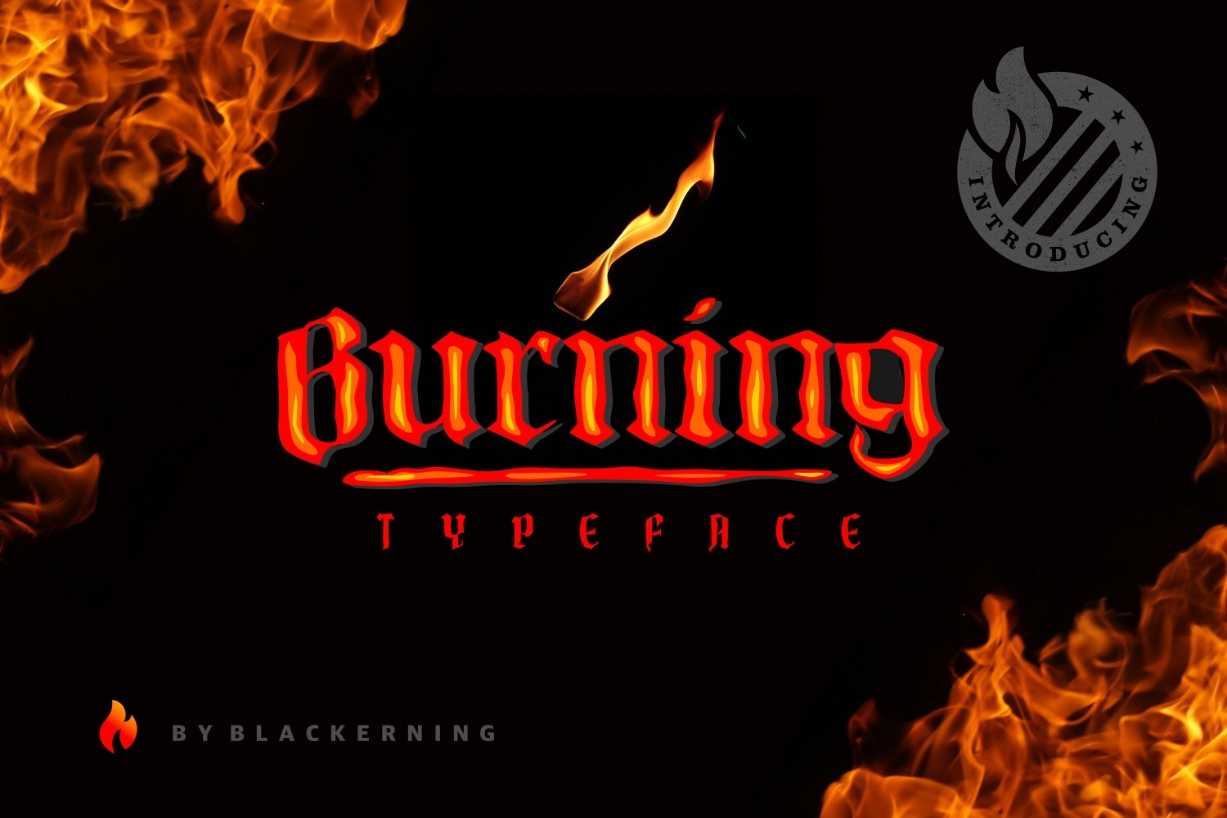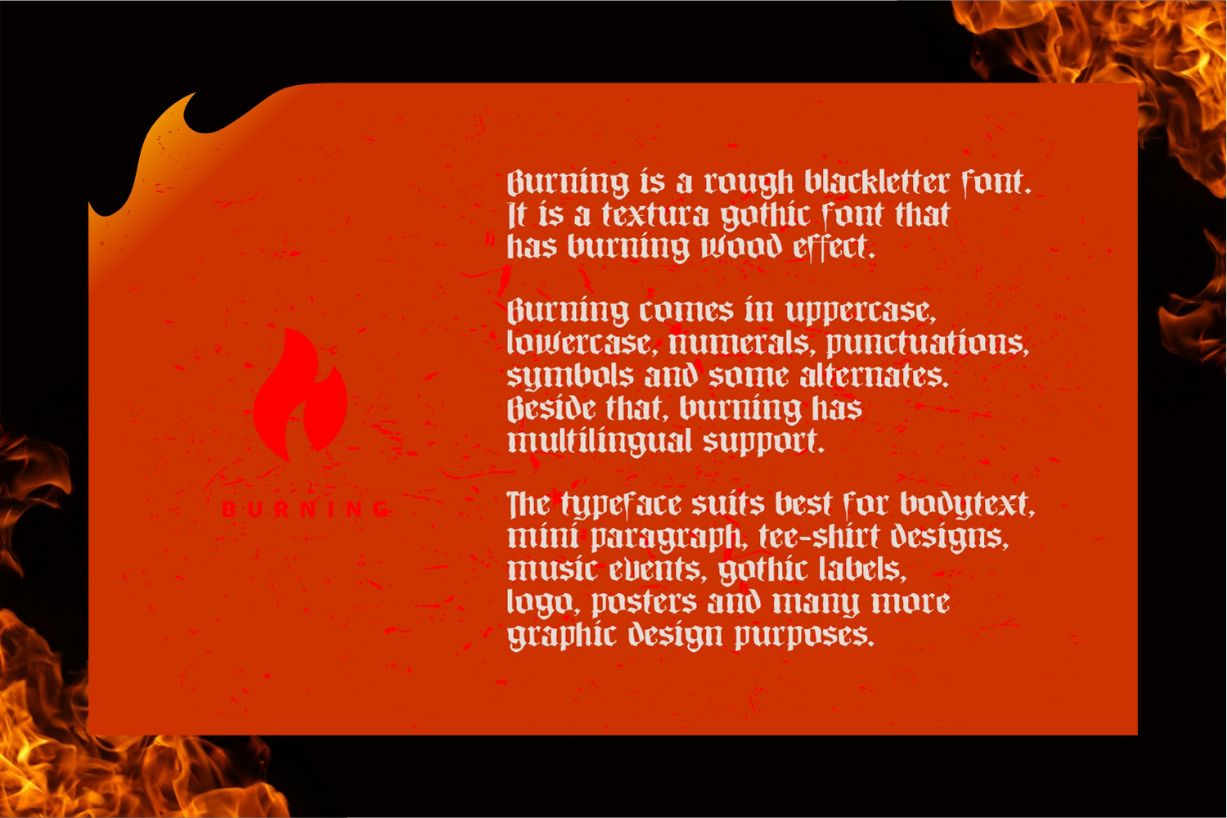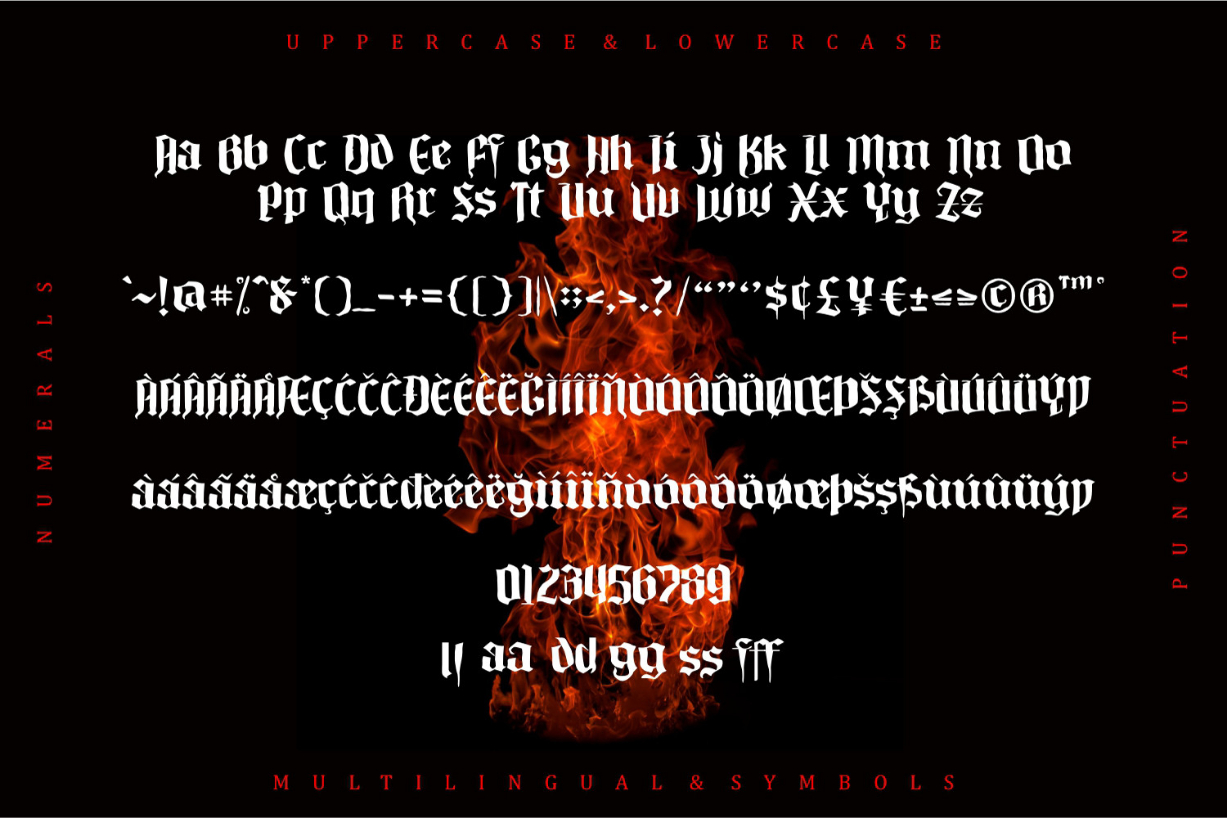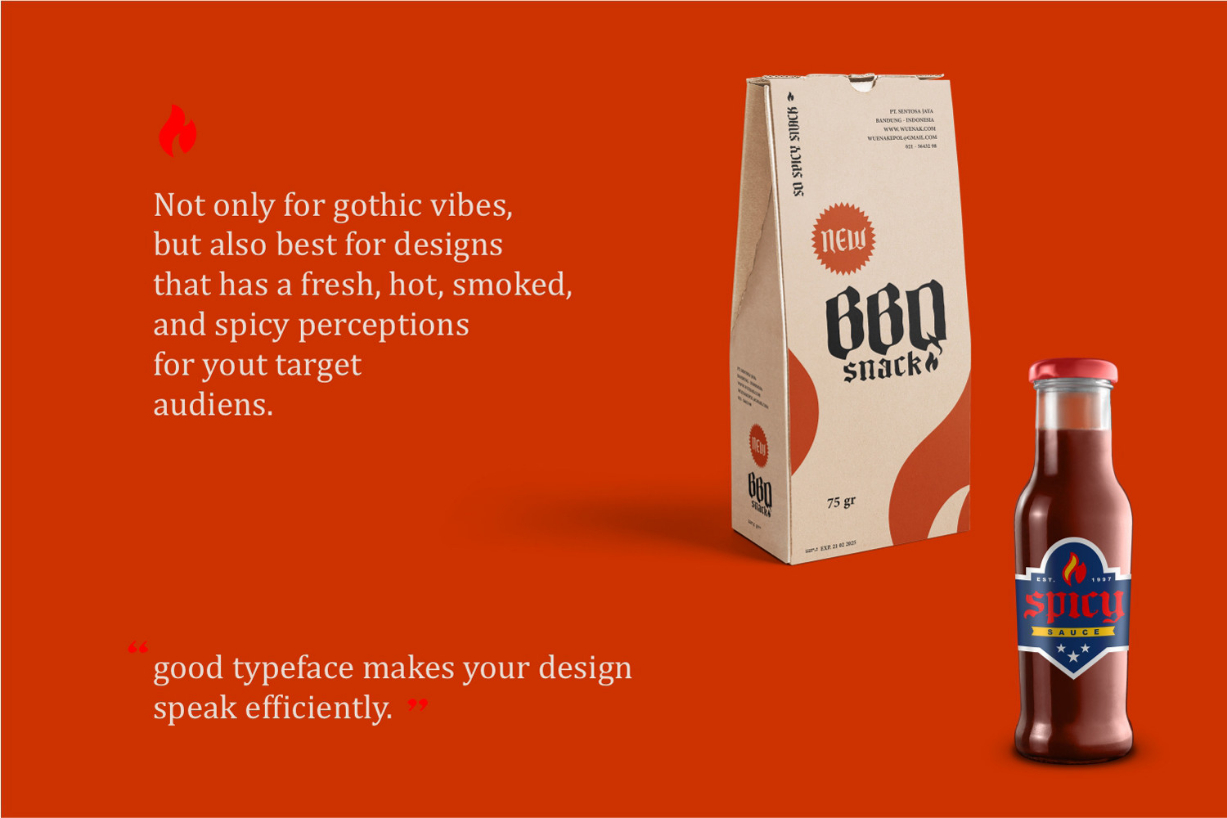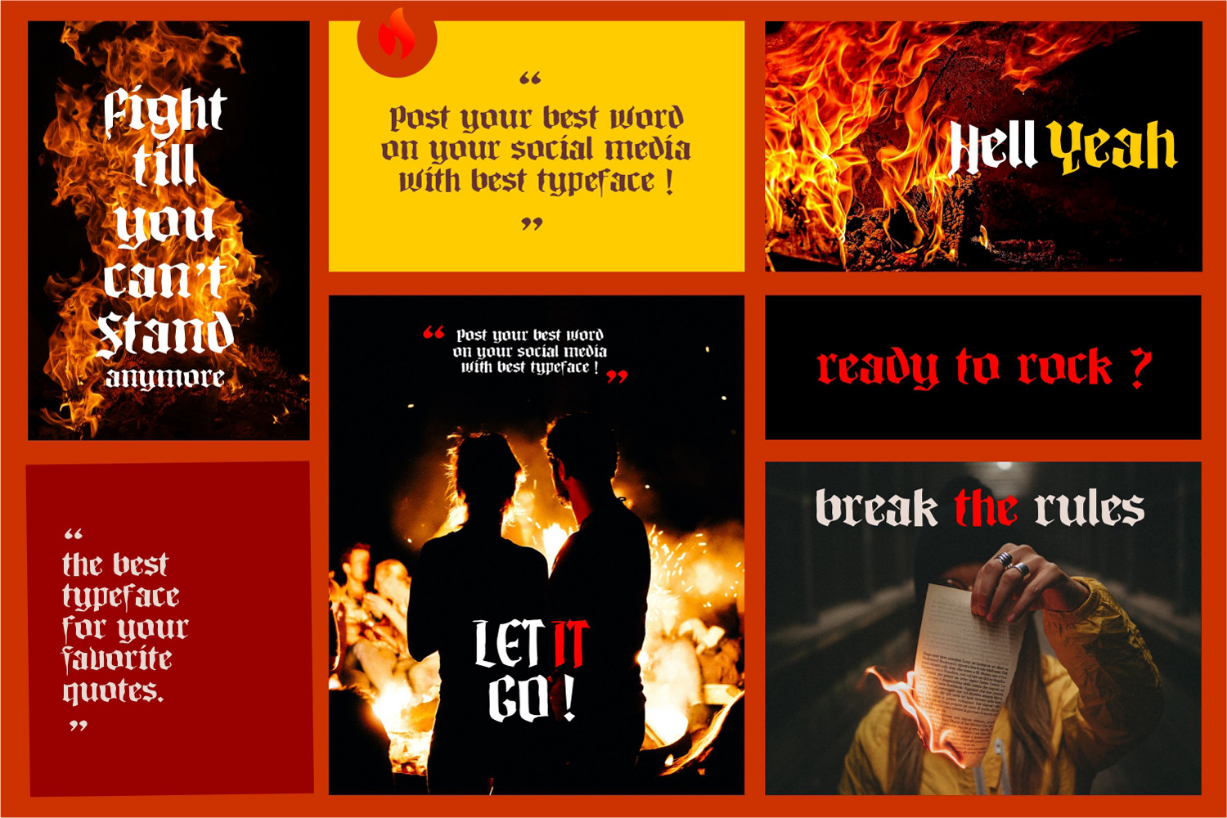
About Burning Font
Burning is a rough lettered blackletter font. It suits a variety of designs that require a distinct and sober touch.
Use this font and explore its endless possibilities.